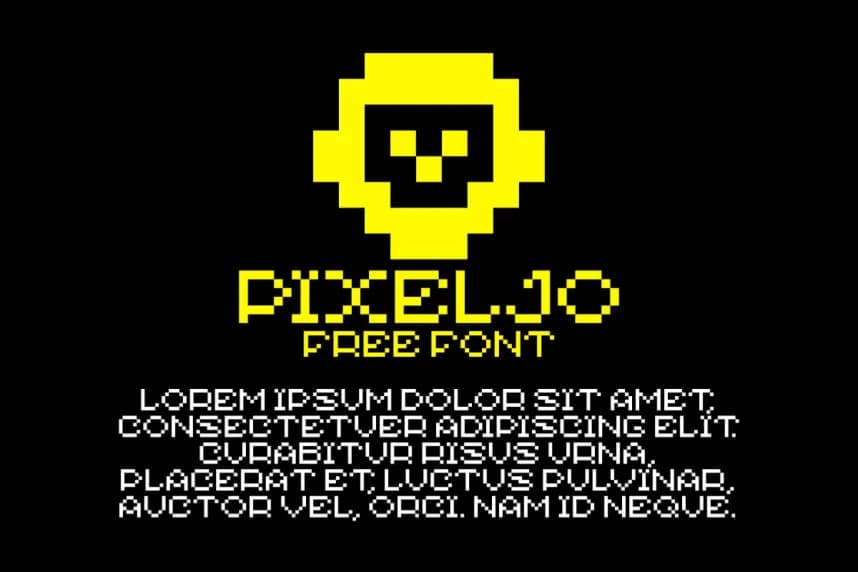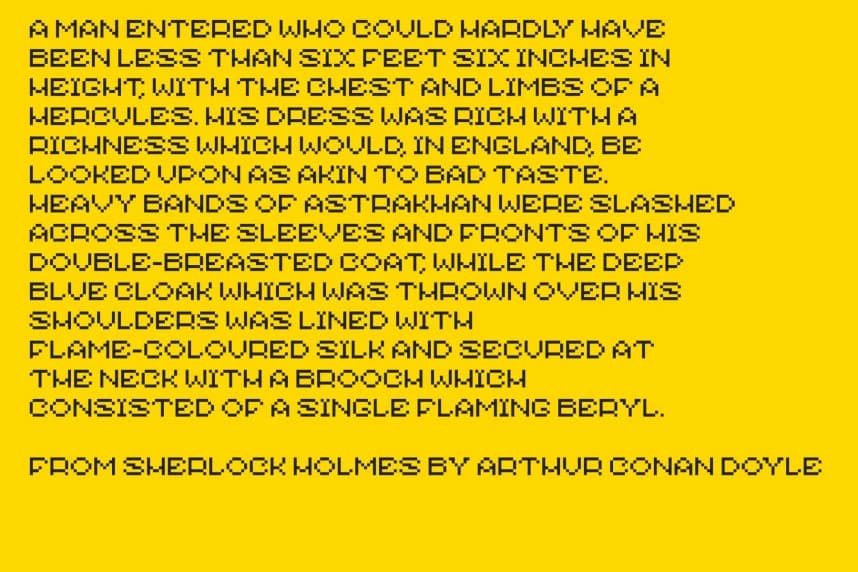
Pixeljo Font
PIXELJO Font is a modern pixel display font that blends retro gaming aesthetics with a clean contemporary style. Built on a structured pixel grid, the typeface delivers a nostalgic 8-bit atmosphere while maintaining strong readability and a sleek minimalist appearance.